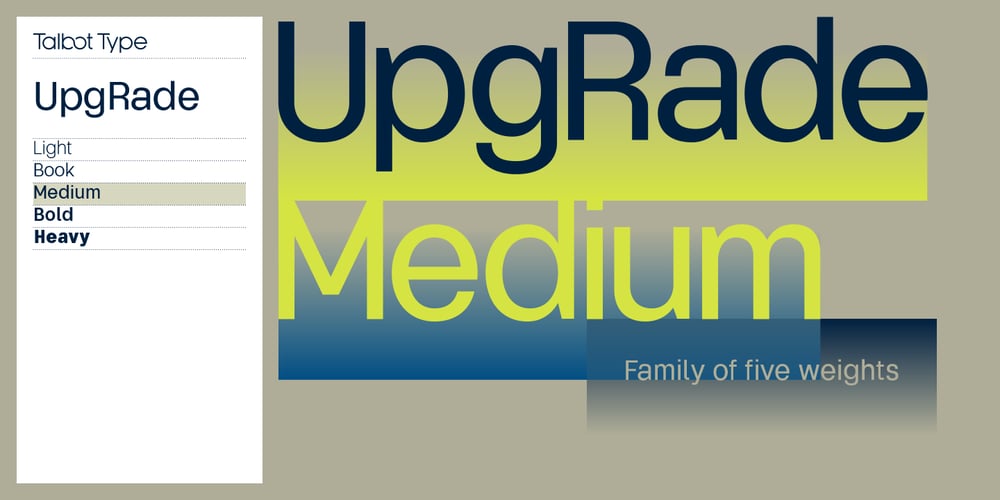
UpgRade Font Family was designed by Adrian Talbot and published by Talbot Type. UpgRade contains 10 styles and family package options. UpgRade is a highly legible, humanist text and display font. Inspired by classic humanist fonts such as Akzidenz and Helvetica, this elegantly minimal typeface is designed for maximum legibility at small sizes with details such as the two-storey a, modern g and a tail on the l. UpgRade provides refreshing alternative to some of the more obvious sans serifs.It’s available in a family of five weights. It includes old style non-aligning (lower case) numbers, as well as accented characters for Central European languages.A versatile, contemporary sans-serif, UpgRade is suitable for more-or-less any text or display purpose.